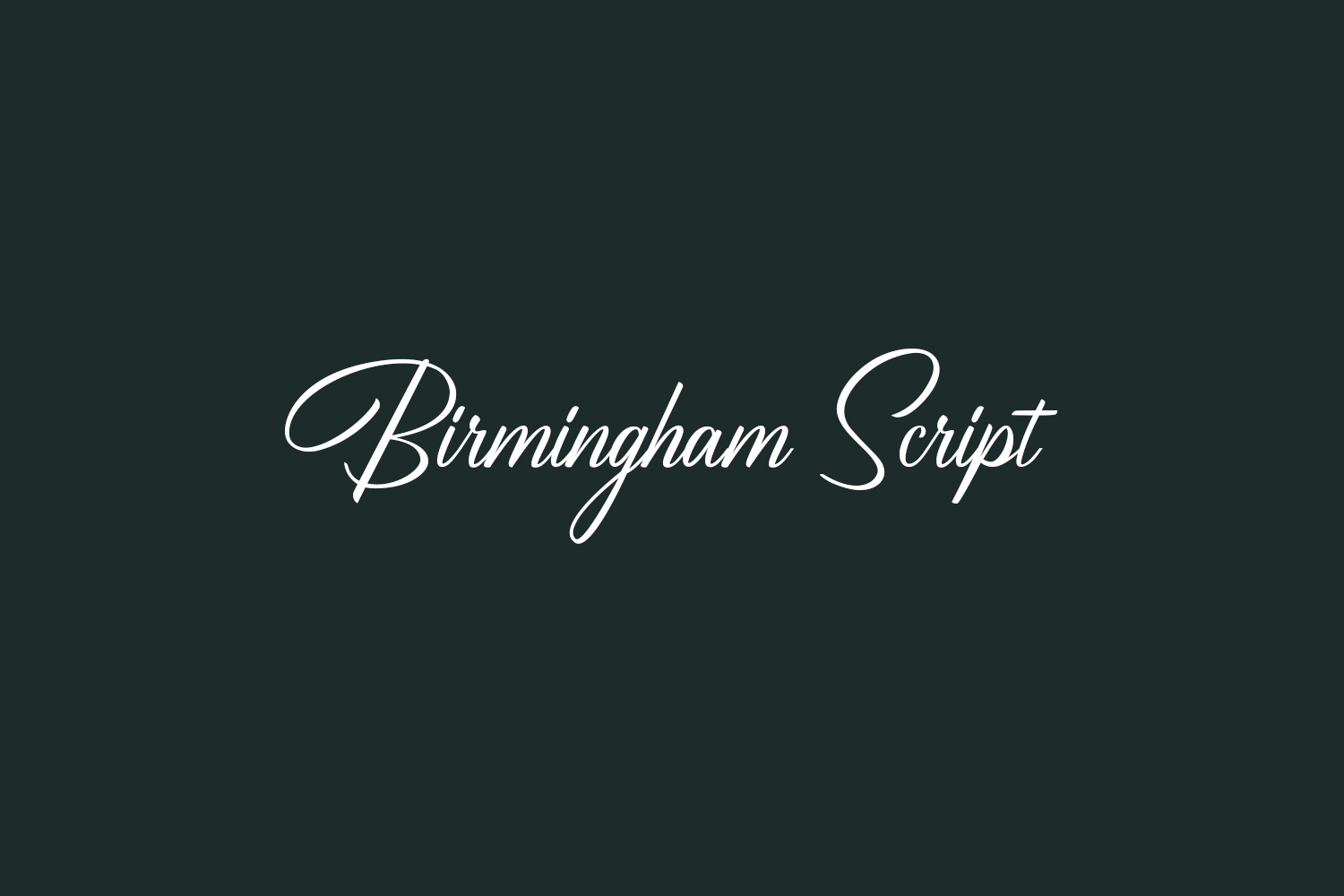
Birmingham Script Free Font is a classy script font with a unique style. It can add a personal touch to any crafting project. Birmingham Script Free Font was designed by Letterhend Studio and is free for personal use only. Please purchase the full version for commercial use.
Designed by Letterhend Studio